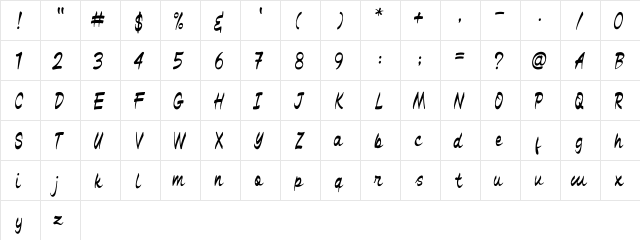
Black Miesee Regular
| Foundry | Polah |
| Designer | Polah |
Design Context for Black Miesee Typeface
Black Miesee is a composed and adaptable typeface that performs quietly and consistently across a wide range of design contexts.